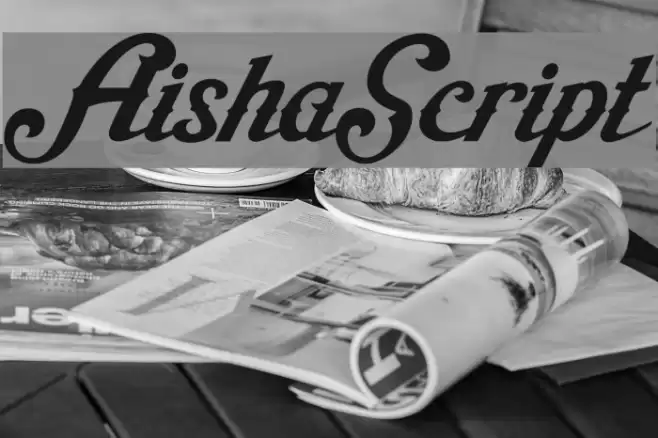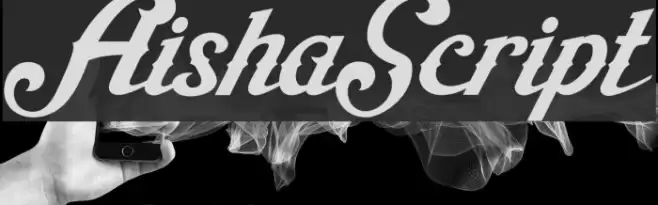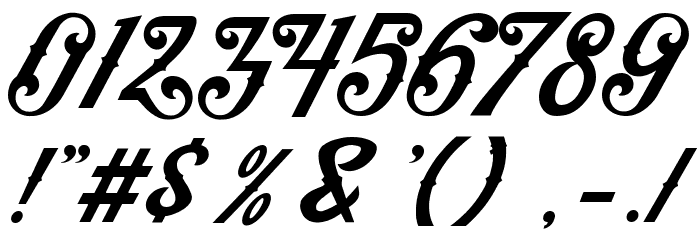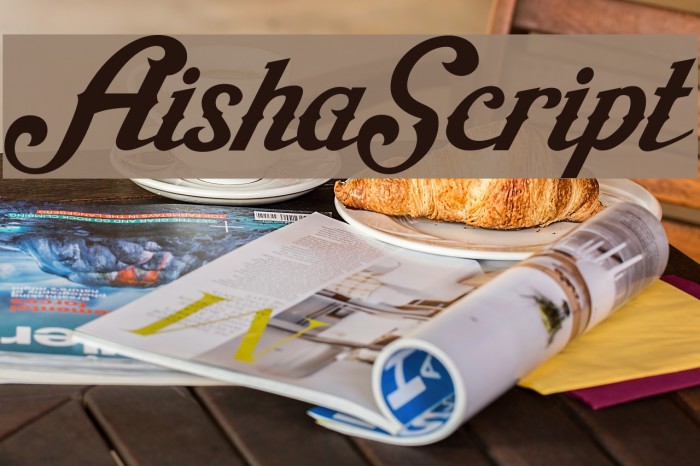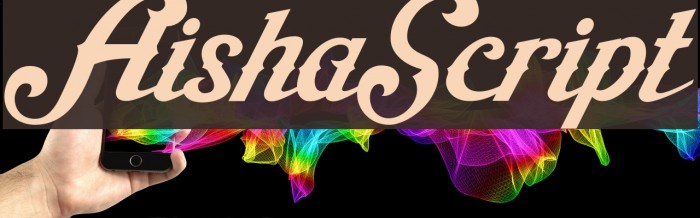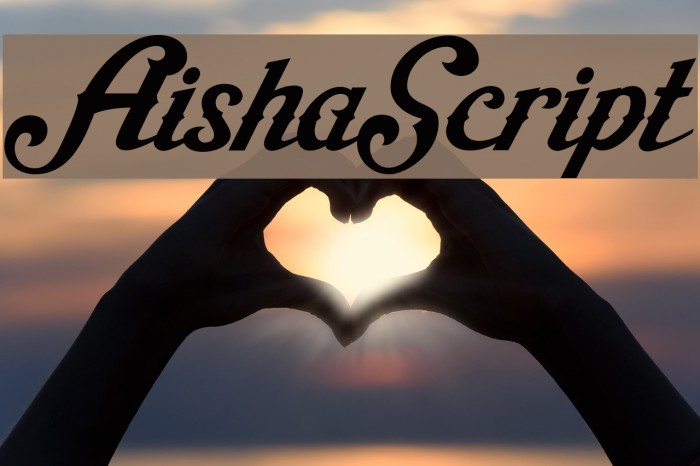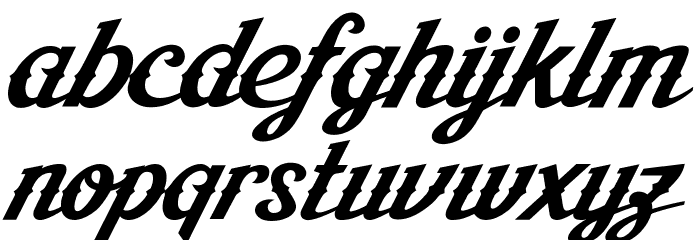
AishaScript Font
AishaScript Description
This font features a bold, cursive style with a strong emphasis on flowing, interconnected characters. The uppercase letters are ornate, with elegant swirls and loops that add a decorative flair. The lowercase letters maintain a similar style, with smooth curves and a consistent slant that gives the text a dynamic, lively appearance. Numbers and special characters are designed to match the overall aesthetic, ensuring a cohesive look across all text elements. The font's bold weight and high contrast between thick and thin strokes make it stand out, ideal for eye-catching designs.
A bold, cursive font with decorative swirls and high contrast from Uncategorized fonts.
- Proposed Projects: Ideal for wedding invitations, greeting cards, branding, and logo design where a touch of elegance and sophistication is desired.
- Use Case: Logos, Invitations, Decorative headings